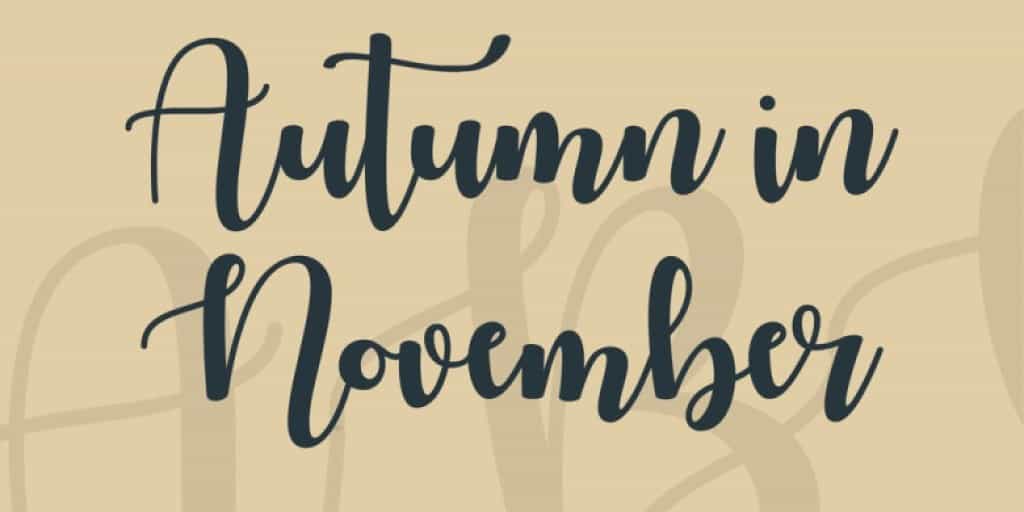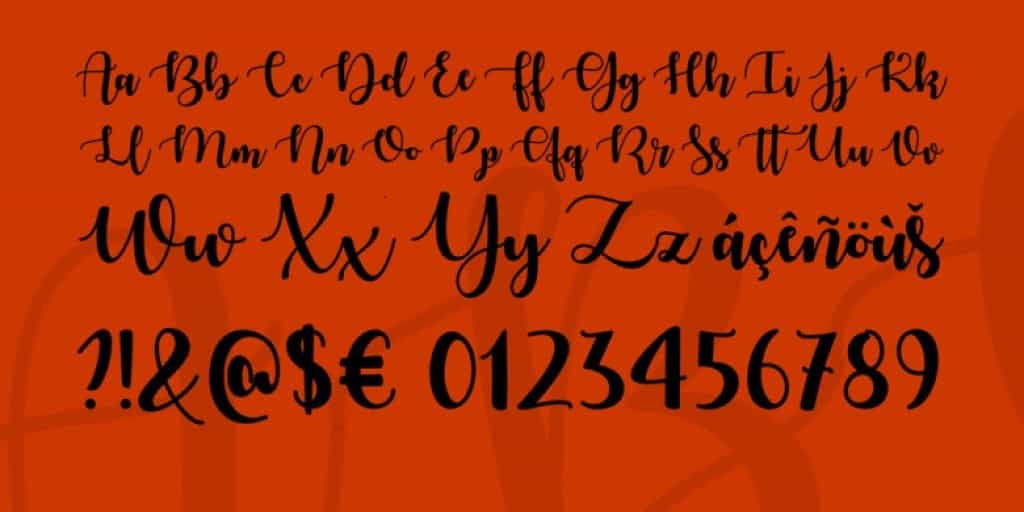
Discover Autumn in November Font, part of the Calligraphy Handwritten Script Personal collection—a versatile and unique font perfect for adding a personal touch to your projects. Download it for free and enjoy crafting designs with style, from invitations to social media posts. This font is available exclusively for personal use, giving you the freedom to create without limits. Unlock your creativity with Autumn in November Font today!